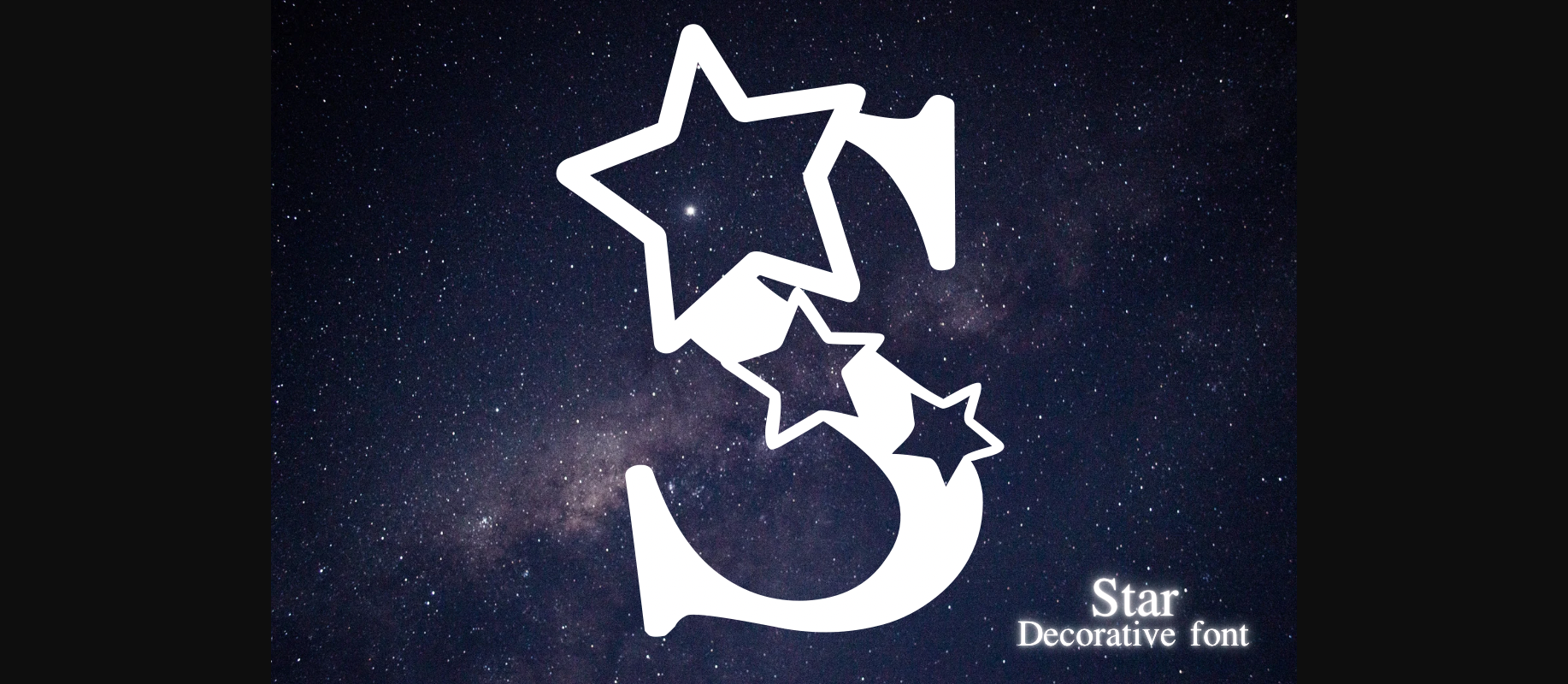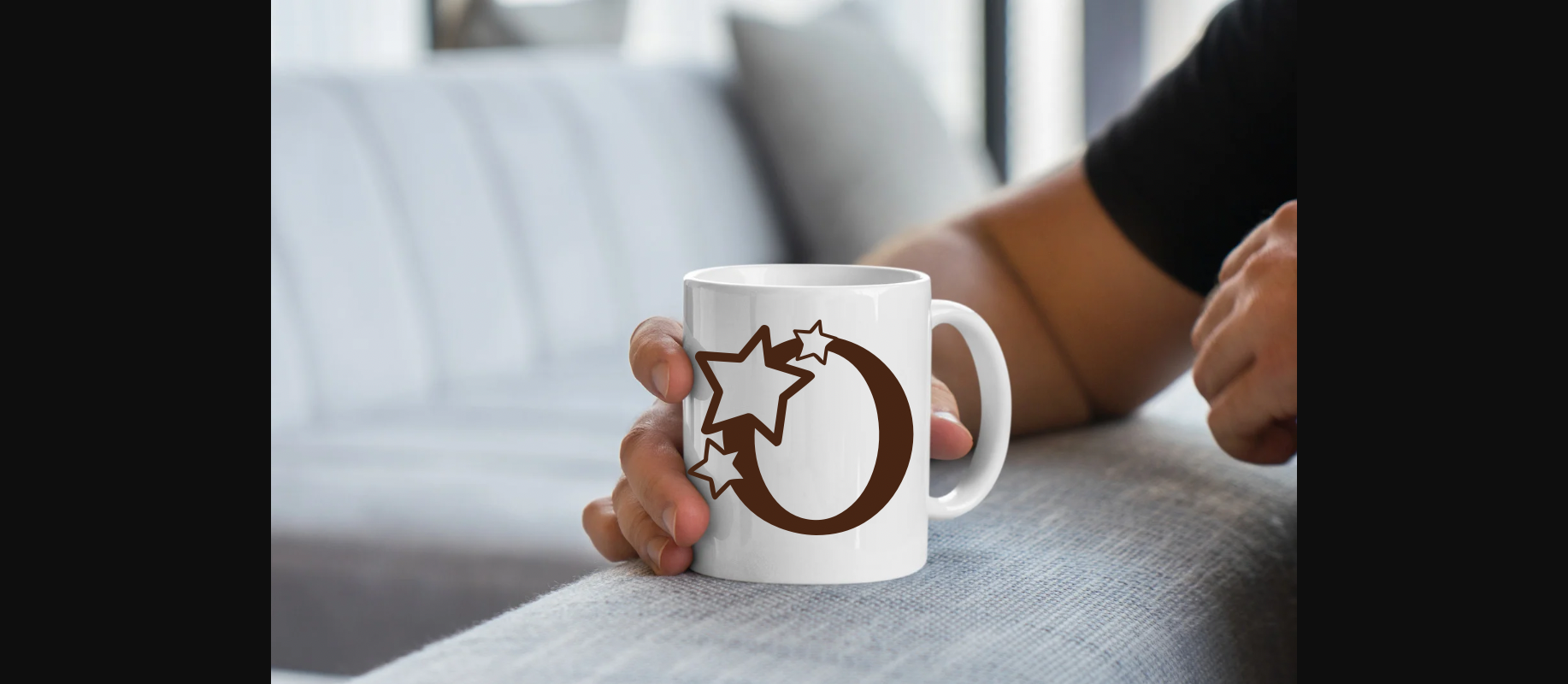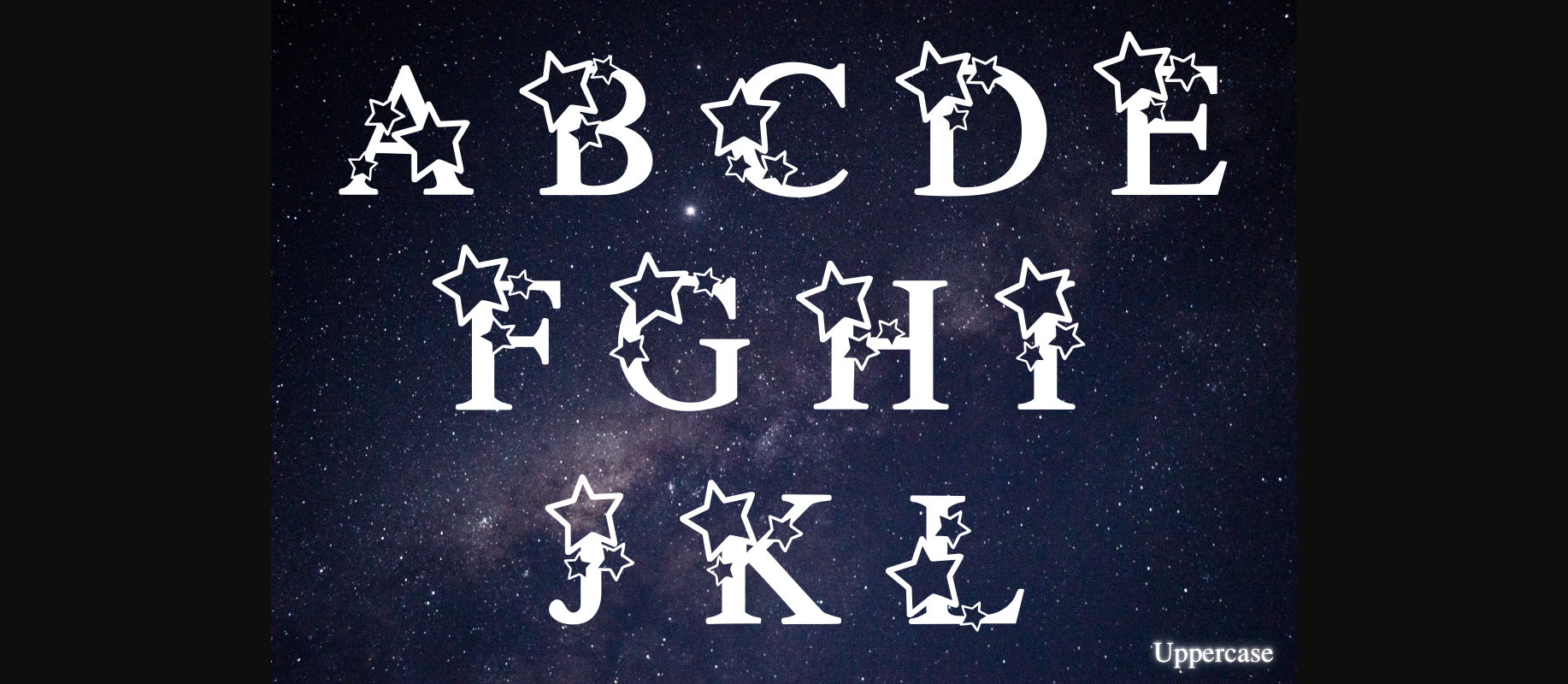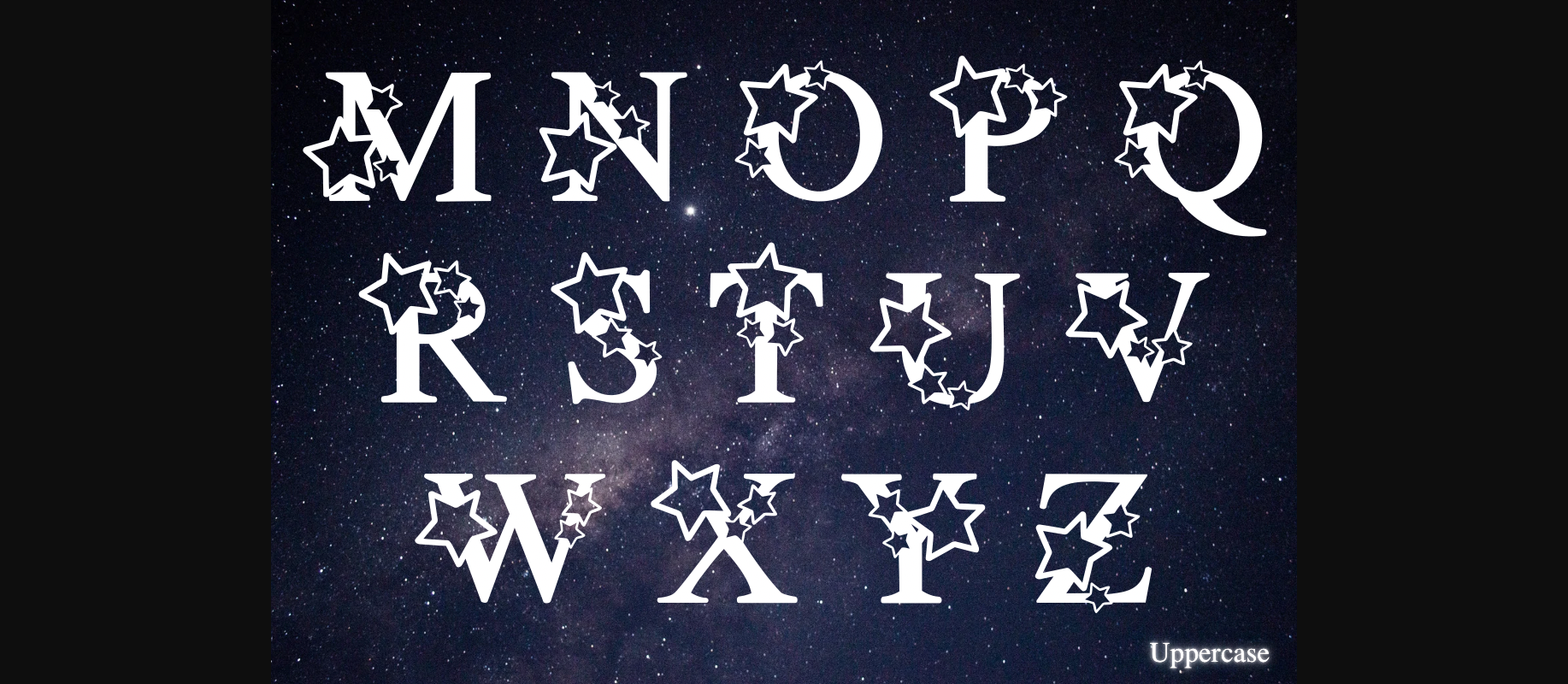
About Star Font
Star is a decorative font. You can use it for taking notes, writing a diary or making greeting cards. However you can still use it for other designs such as banners content mugs cards shirts stationery social media posts and more!